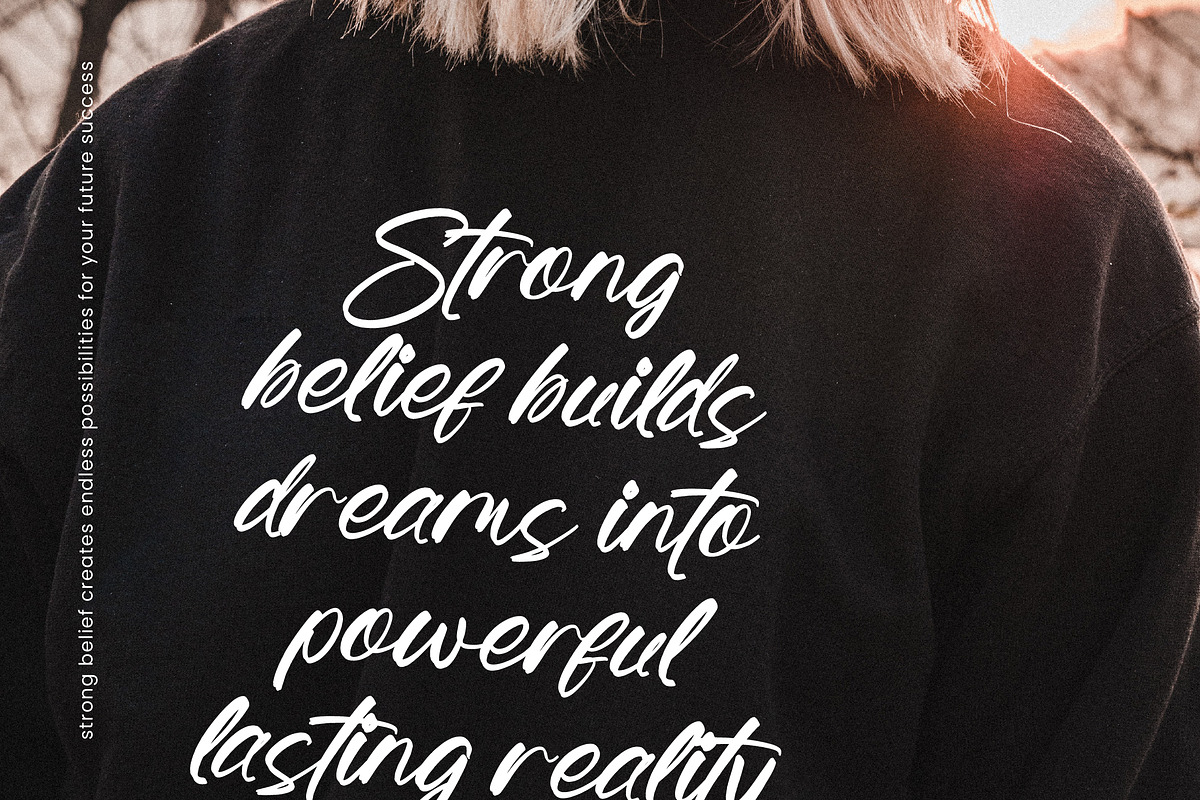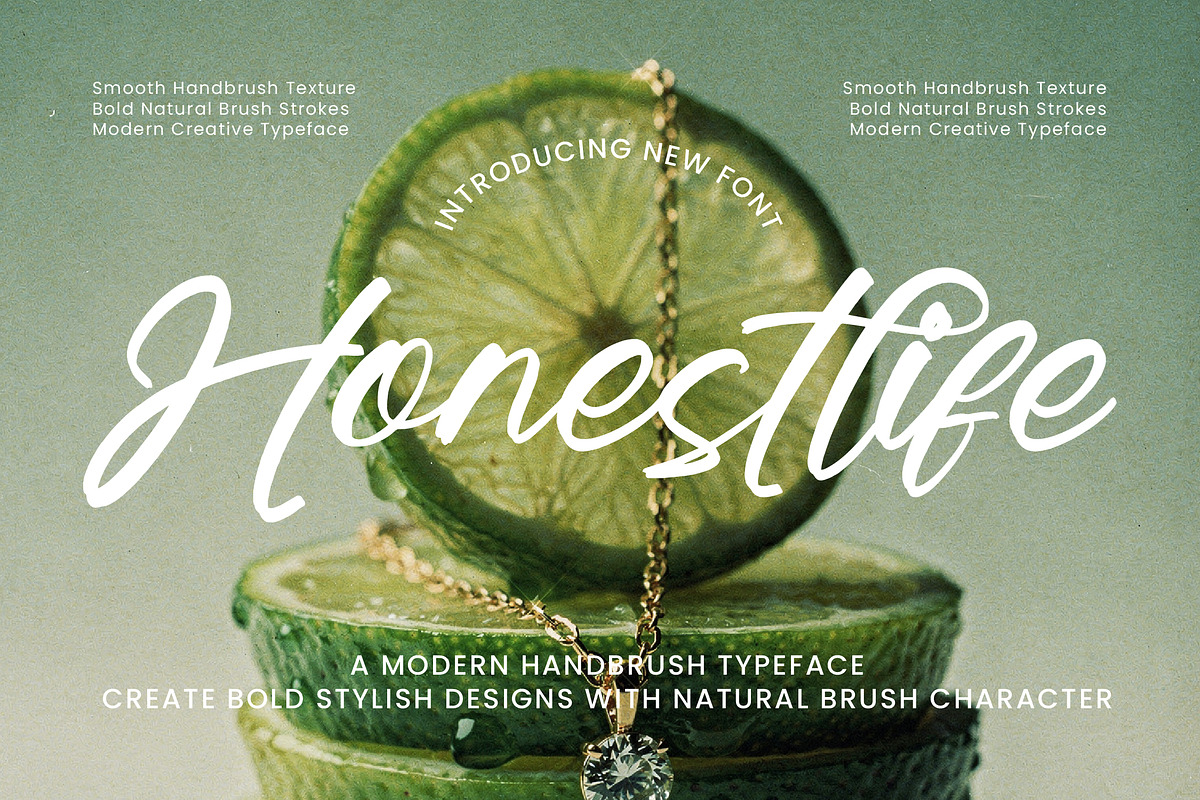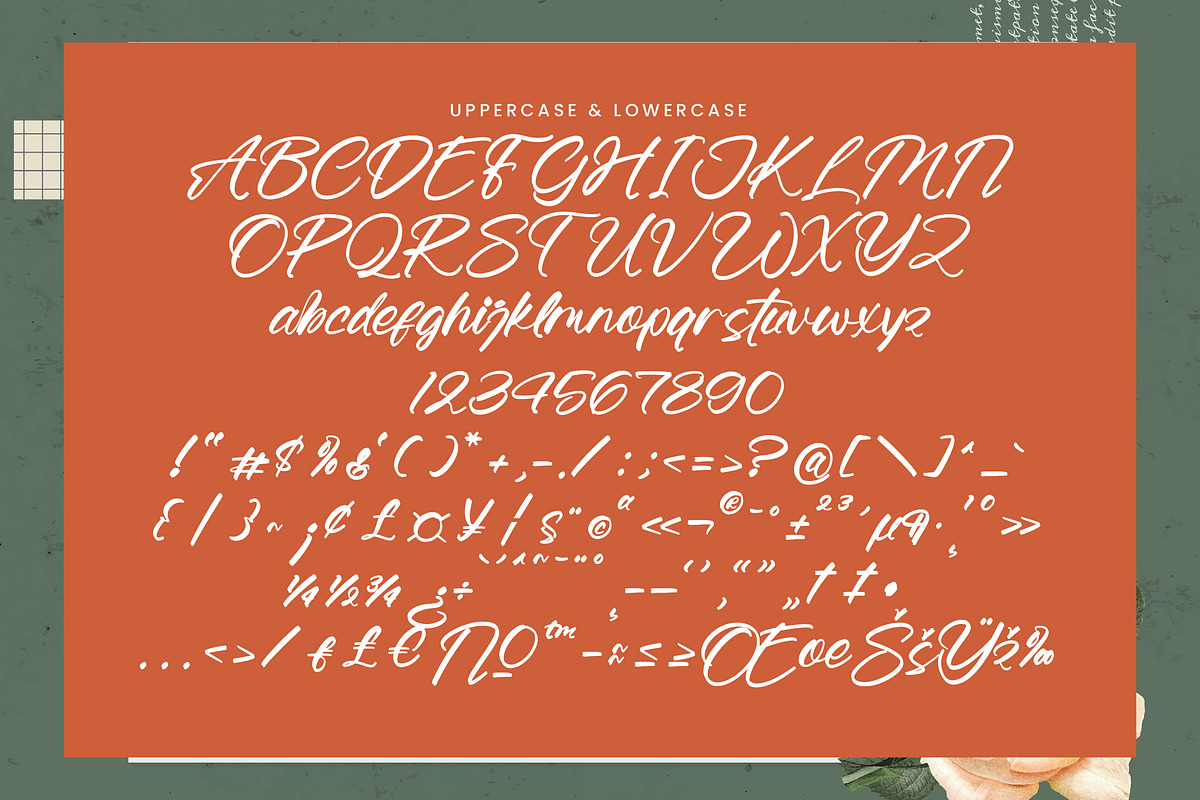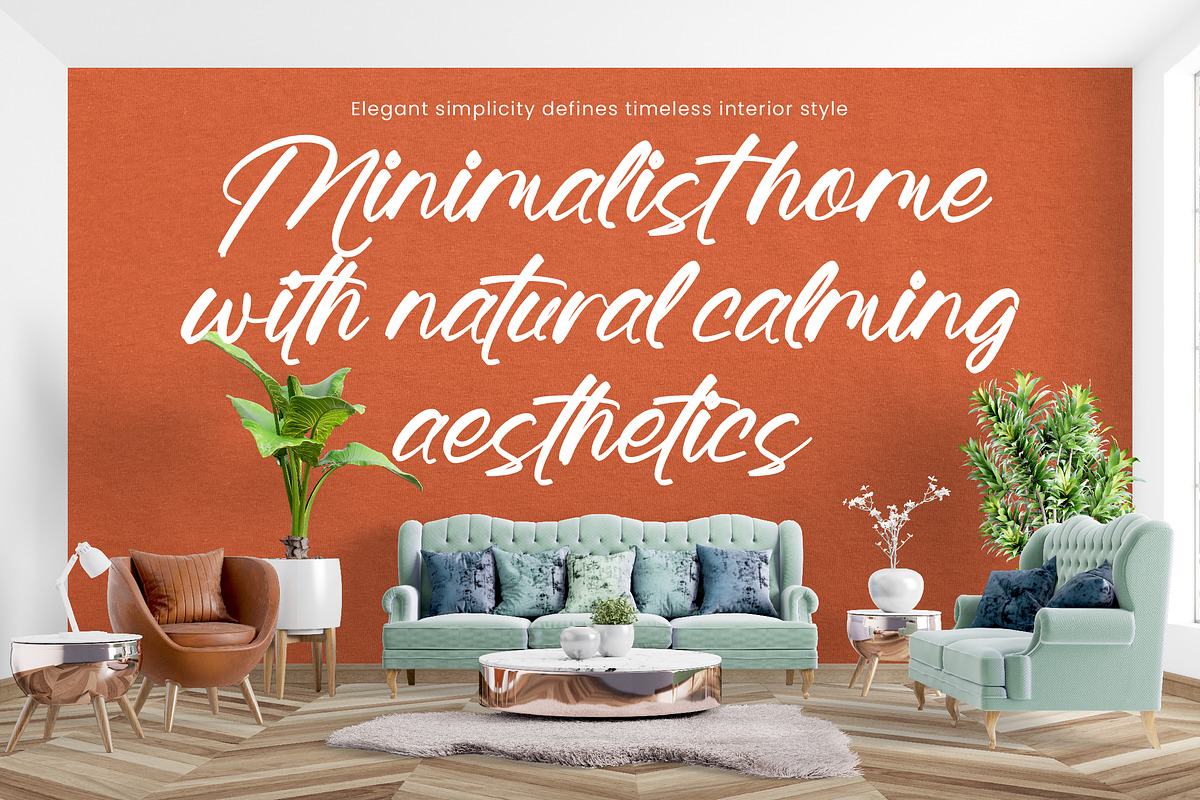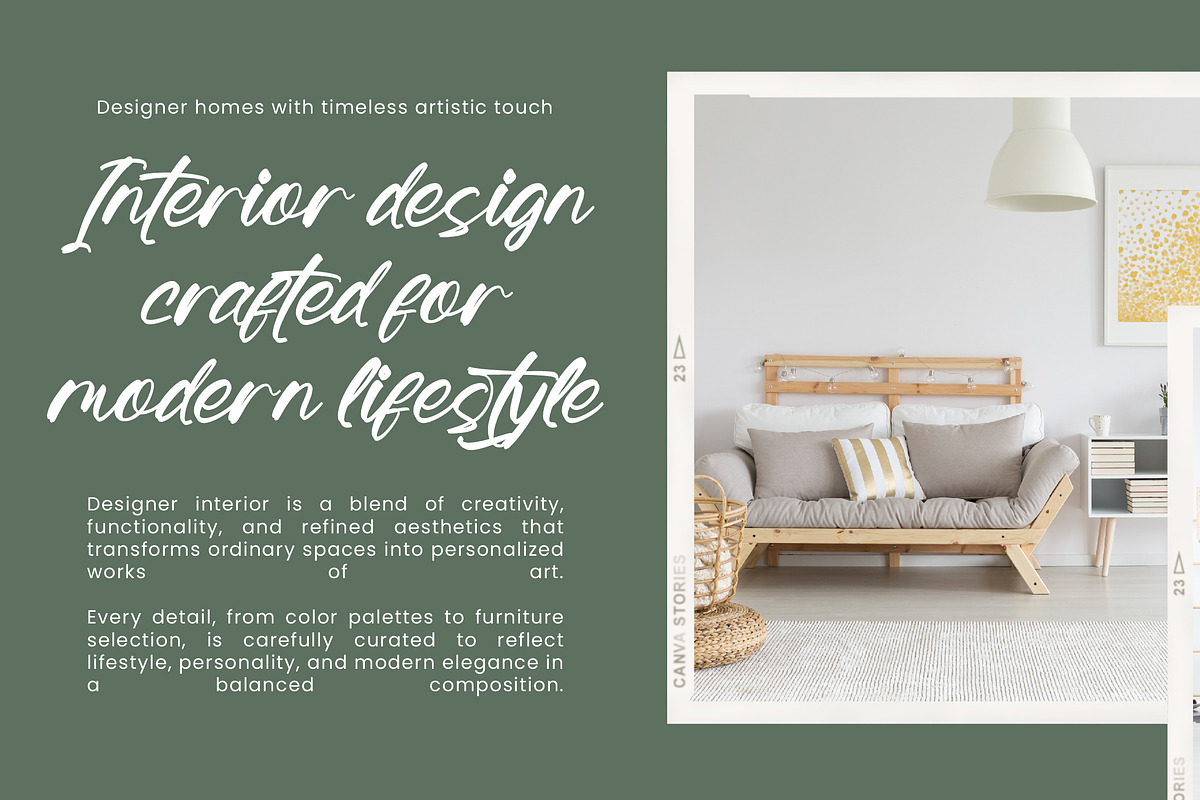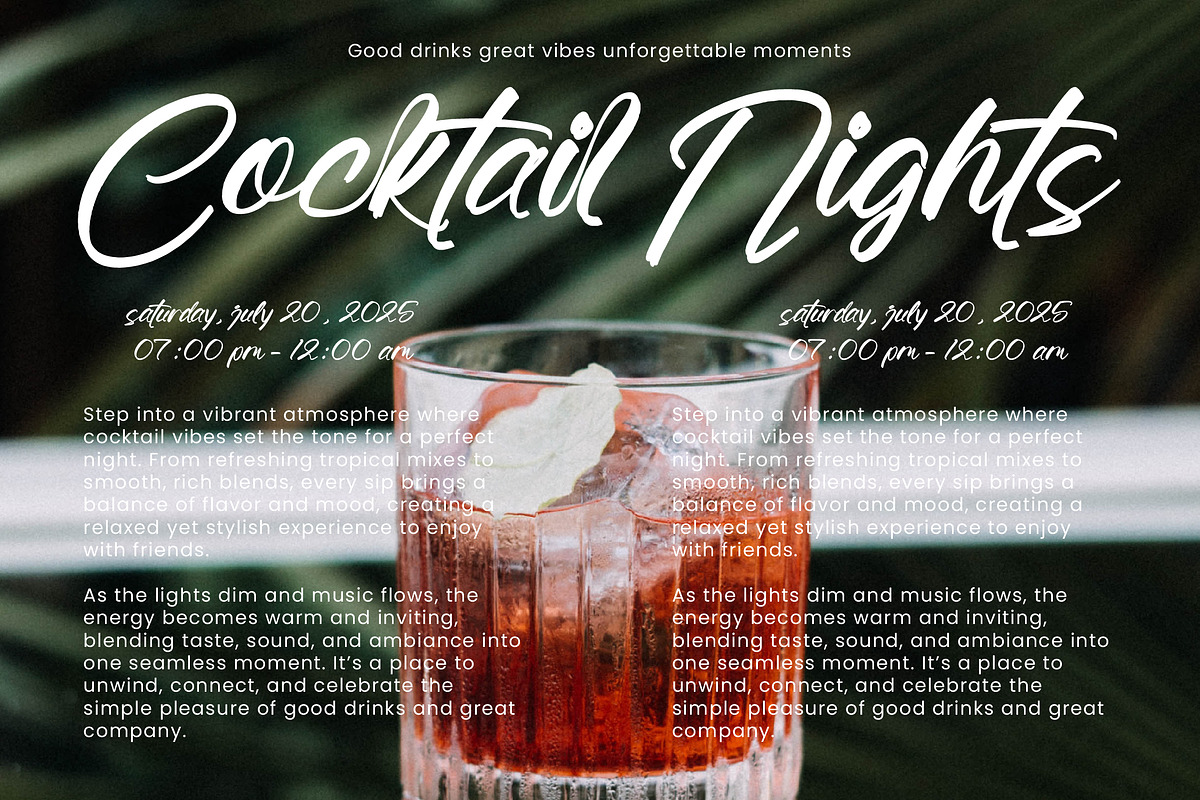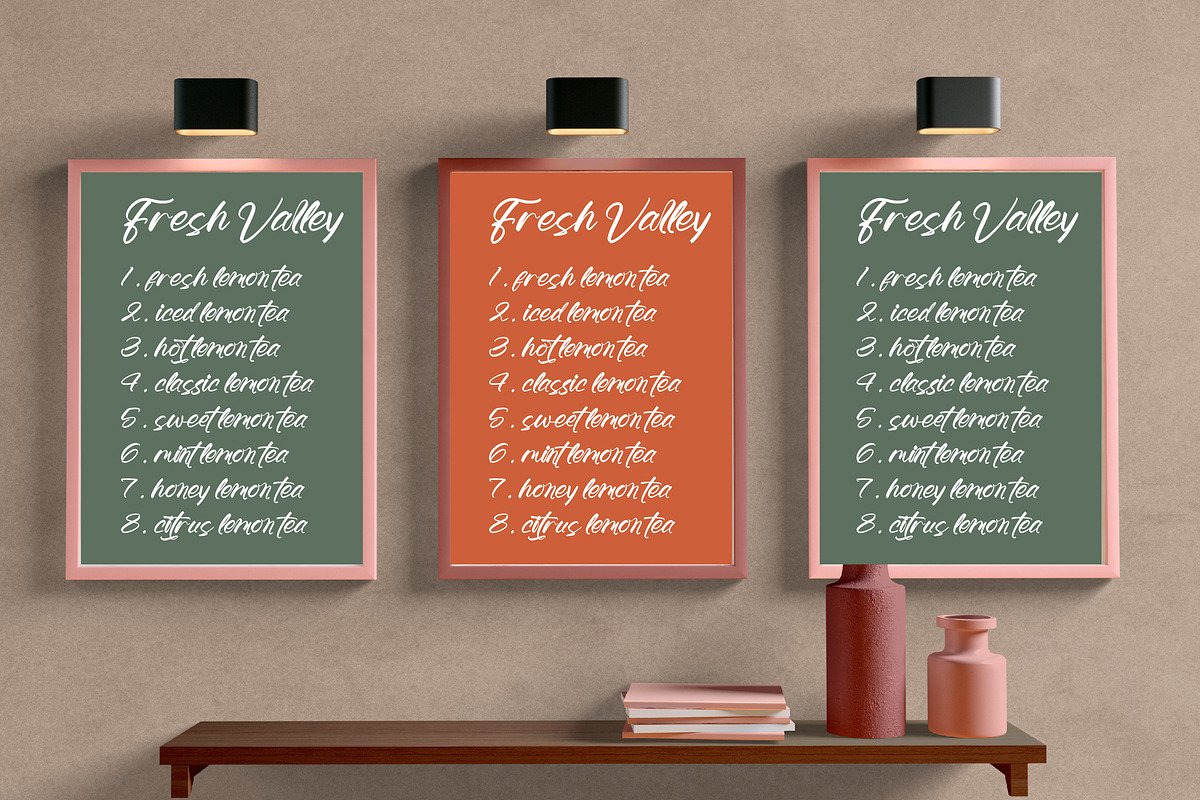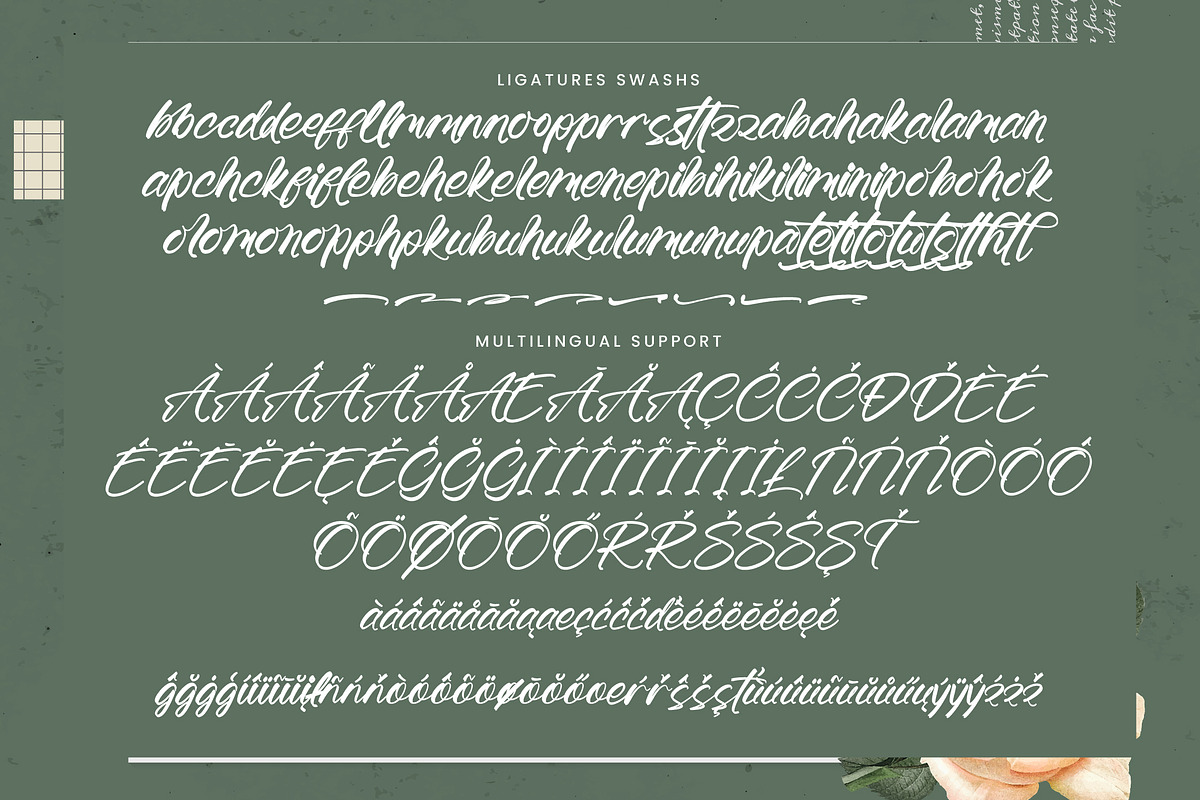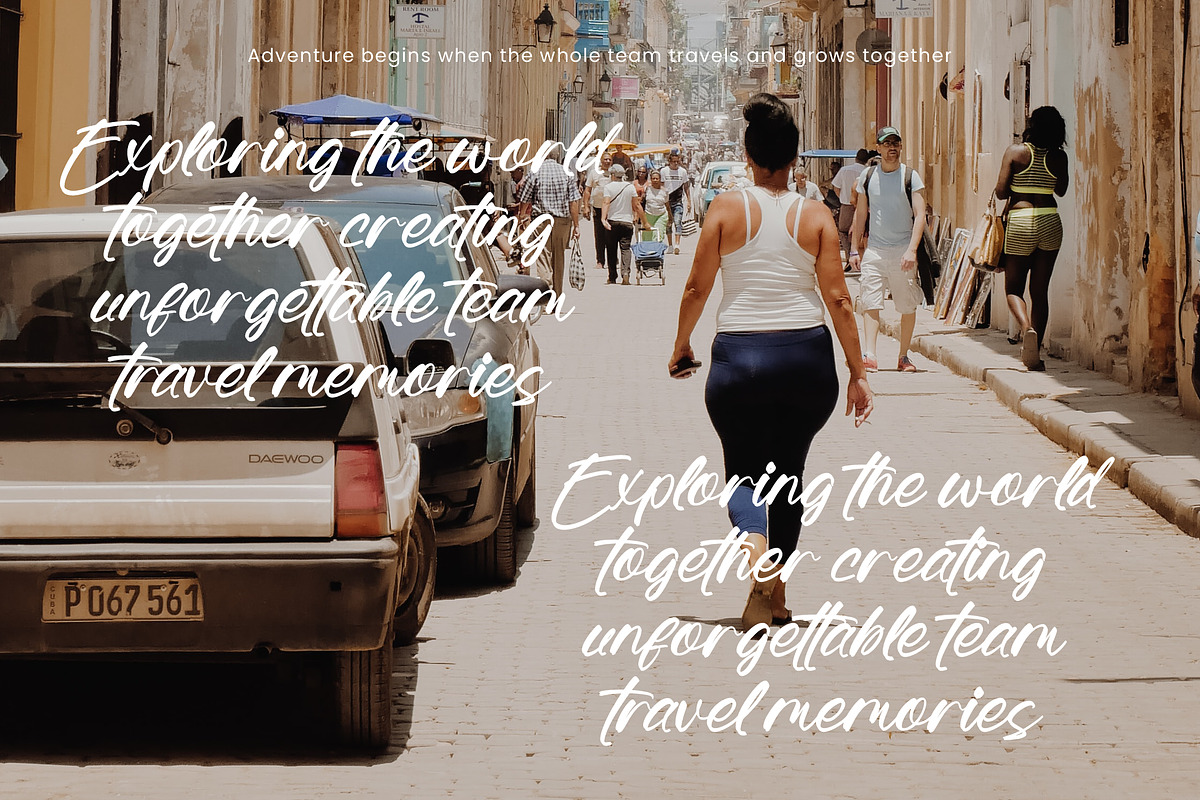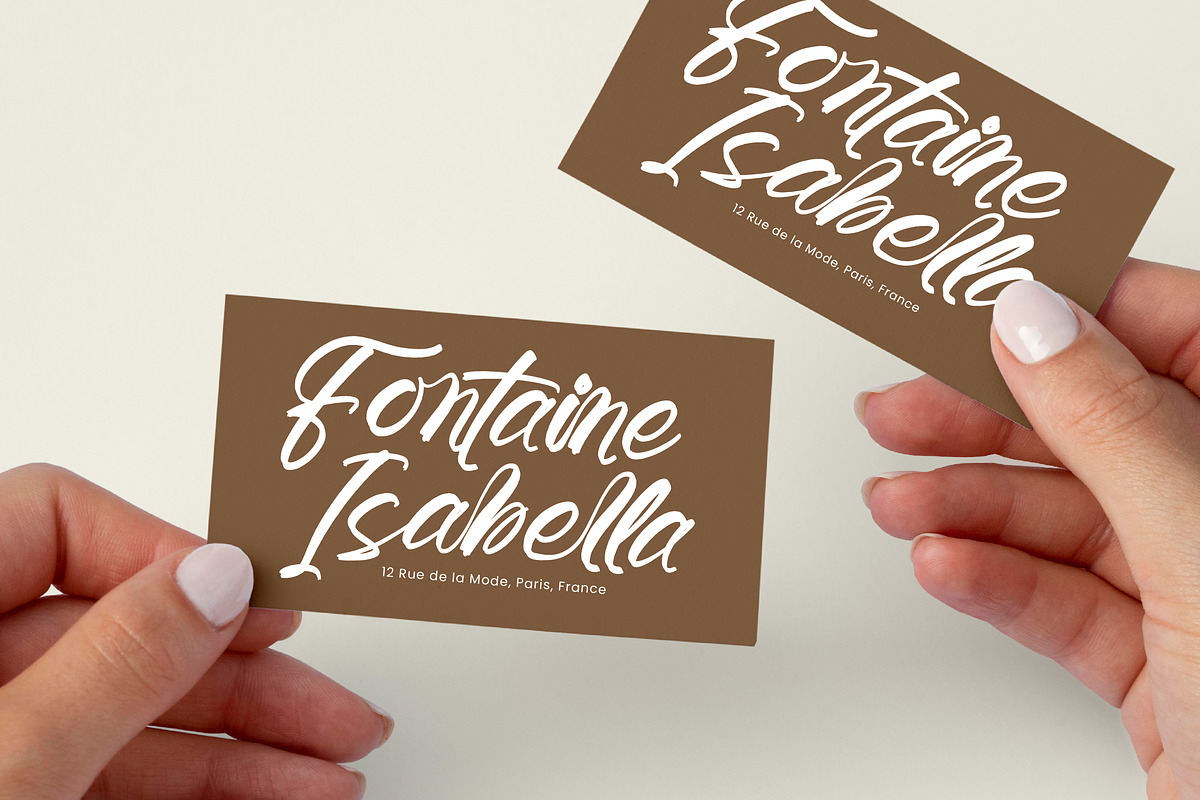
Honestlife Modern Handbrush
Honestlife – A Modern Handbrush Typeface
Honestlife is a modern handbrush typeface created with natural brush strokes and expressive movement. Its bold and authentic character delivers a handcrafted feel that looks energetic, stylish, and full of personality.
Designed to stand out in branding, logos, packaging, posters, apparel, social media, and editorial projects, Honestlife combines raw brush textures with smooth readability to create impactful visual compositions.
Whether you're building a modern lifestyle brand, creating eye-catching headlines, or designing creative merchandise, Honestlife adds confidence and artistic flair to every design.